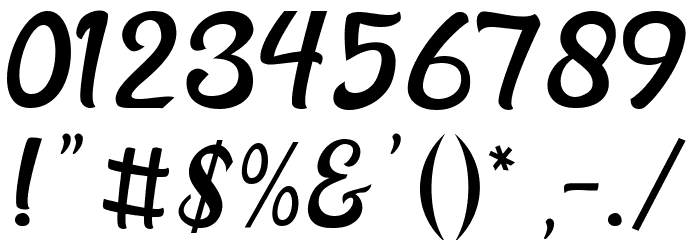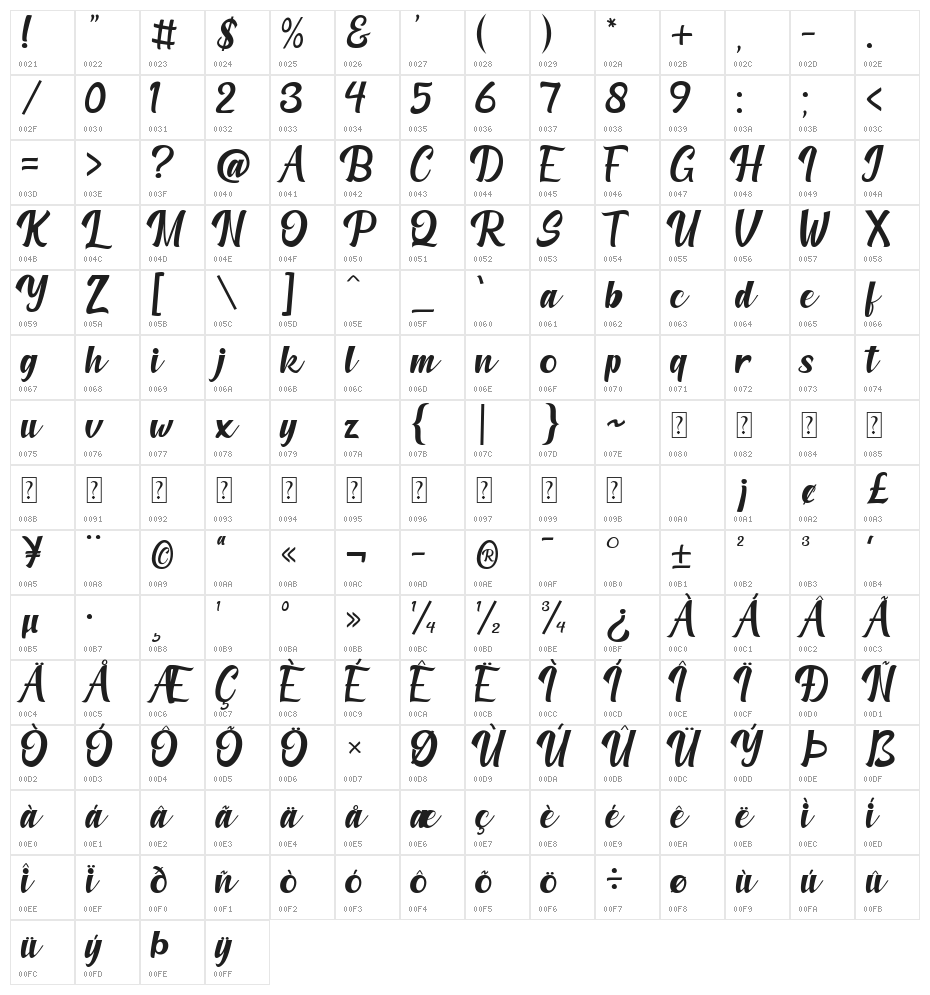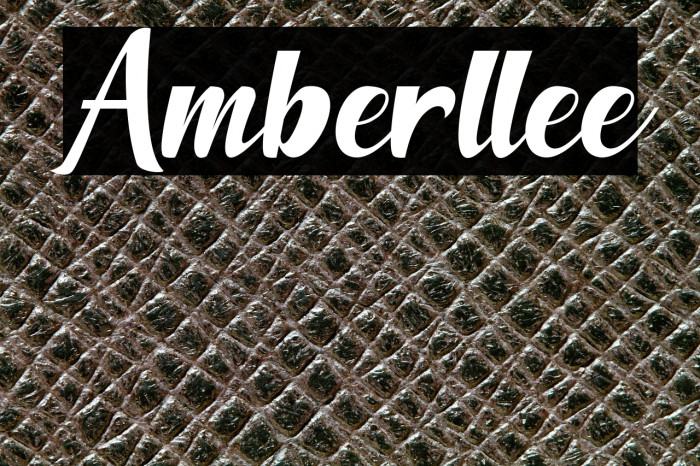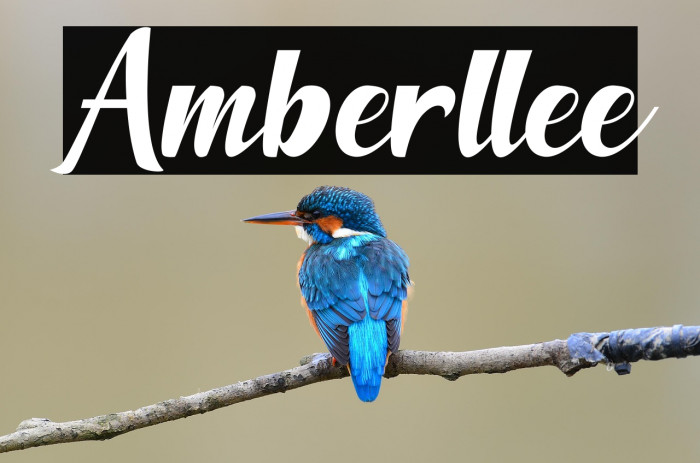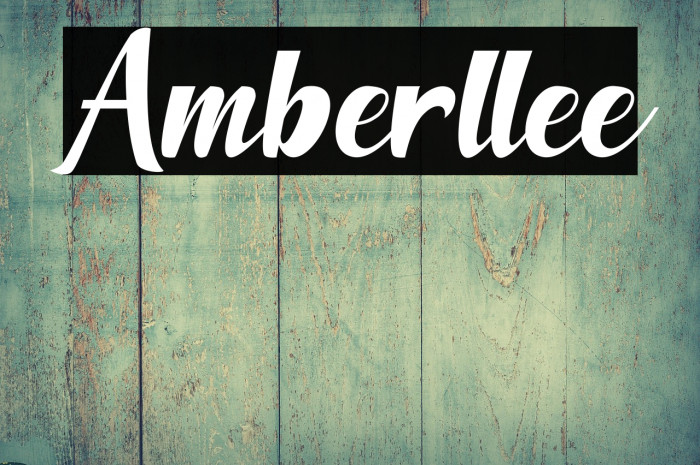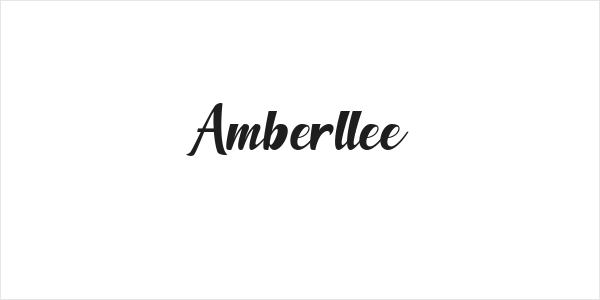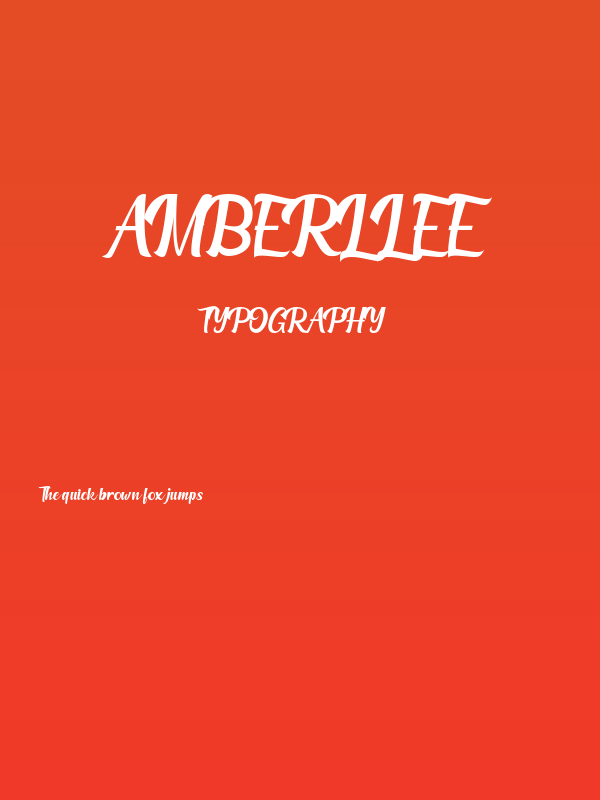
Amberllee Font
Amberllee Description
This font features a bold, flowing script style that combines elegance with a touch of modern flair. The uppercase letters are characterized by sweeping curves and a slight slant, giving them a dynamic and lively appearance. The lowercase letters maintain a consistent flow, enhancing readability while preserving the font's decorative nature. Numbers and special characters are designed to match the overall aesthetic, with smooth curves and a cohesive look. This font's bold weight and medium contrast make it suitable for attention-grabbing headlines and stylish logos.
| Proposed Projects | Ideal for branding projects, wedding invitations, greeting cards, and stylish logos. |